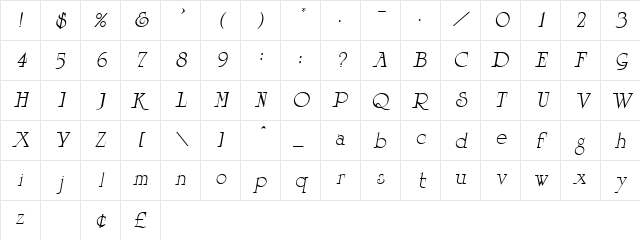
Rimsky is a composed and adaptable typeface that performs quietly and consistently across a wide range of design contexts. The slanted form adds forward momentum and visual energy.